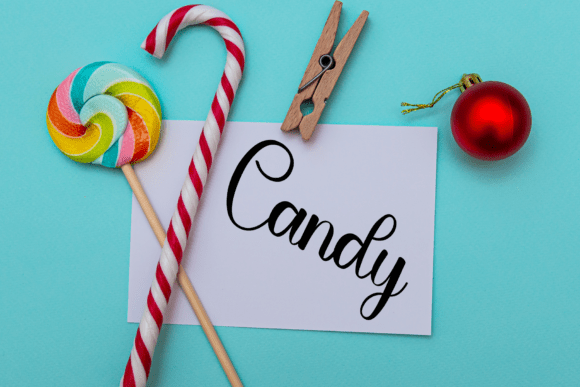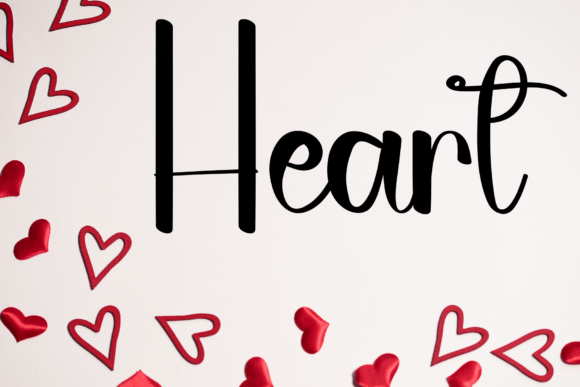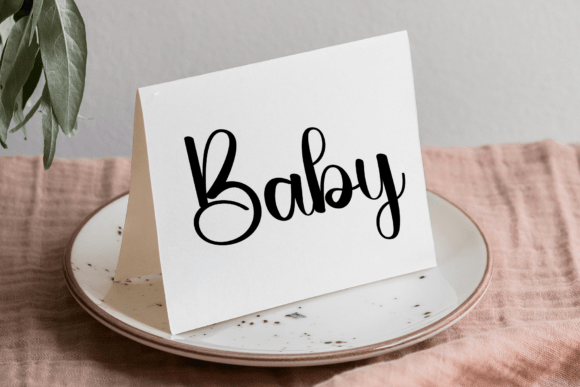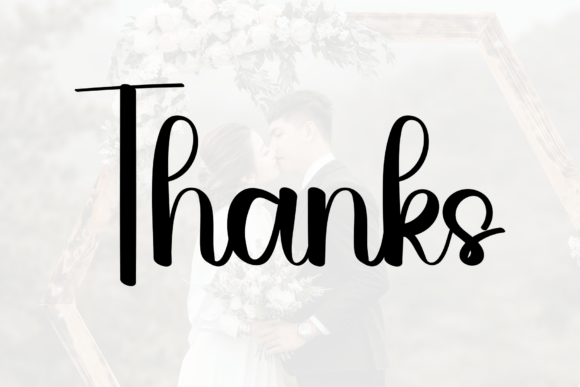
Introducing Chubby Wedding Font: The Perfect Choice for Your Design Projects
Are you looking for a font that exudes warmth, comfort, and a sense of perfection? Look no further than Chubby Wedding Font, a charming handwritten font that is sure to capture the hearts of designers and crafters alike. With its smooth strokes and organic lines, this beautiful font is perfect for a variety of design projects, from branding and invitations to social media graphics and more.
The Characteristics of Chubby Wedding Font
Chubby Wedding Font is a unique and captivating font that boasts a range of characteristics that make it stand out from the crowd. Its smooth, flowing strokes and organic lines give it a relaxed and effortless feel, making it perfect for designs that require a personal touch. The font’s charming and whimsical nature makes it ideal for projects that require a sense of warmth and personality.
Uses for Chubby Wedding Font
So, what can you use Chubby Wedding Font for? The possibilities are endless! Here are just a few ideas to get you started:
- Branding: Use Chubby Wedding Font to create a unique and memorable brand identity that sets you apart from the competition.
- Invitations: Add a touch of elegance and sophistication to your wedding invitations, party invites, and other special occasion designs.
- Social Media Graphics: Create eye-catching social media graphics that showcase your personality and style.
- Stationery: Use Chubby Wedding Font to create beautiful stationery, including letterheads, business cards, and more.
- Crafting: Perfect for crafters, Chubby Wedding Font can be used to create custom titles, headings, and text for a variety of crafting projects, including scrapbooking, card making, and more.
Why Choose Chubby Wedding Font?
So, why choose Chubby Wedding Font over other fonts? Here are just a few reasons why this font stands out:
- Unique and Eye-Catching: Chubby Wedding Font is a one-of-a-kind font that is sure to grab attention and leave a lasting impression.
- Easy to Read: Despite its whimsical nature, Chubby Wedding Font is surprisingly easy to read, making it perfect for designs that require a clear and concise message.
- Versatile: Chubby Wedding Font can be used for a wide range of design projects, from formal to informal, and everything in between.
- High-Quality: This font is designed to the highest standards, ensuring that it looks great in any design.
Tips for Using Chubby Wedding Font
Here are a few tips for using Chubby Wedding Font in your designs:
- Pair with Other Fonts: Experiment with pairing Chubby Wedding Font with other fonts to create a unique and visually appealing design.
- Use for Headings: Use Chubby Wedding Font for headings and titles to add a touch of personality to your design.
In conclusion, Chubby Wedding Font is a charming and versatile font that is perfect for designers and crafters looking to add a touch of personality to their designs. With its smooth strokes, organic lines, and whimsical nature, this font is sure to capture the hearts of anyone who sees it. Whether used for branding, invitations, social media graphics, or more, Chubby Wedding Font is the perfect choice for any design project.